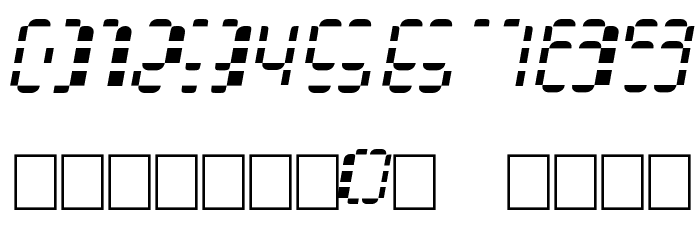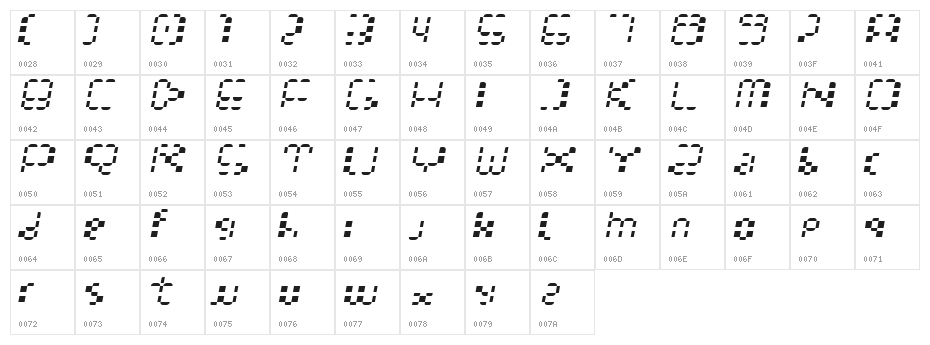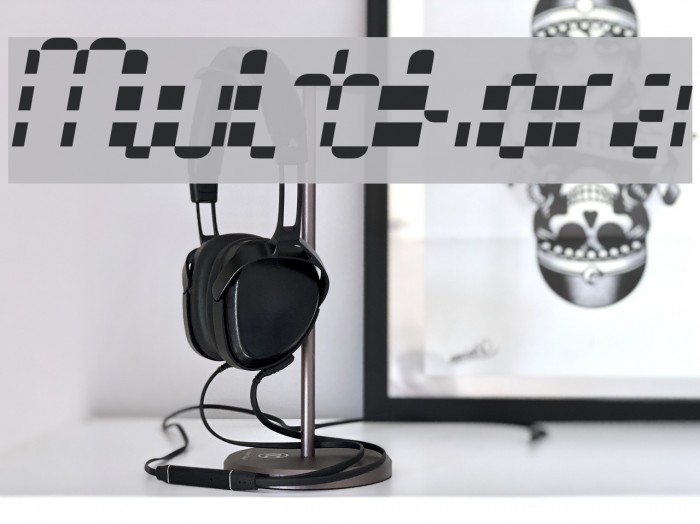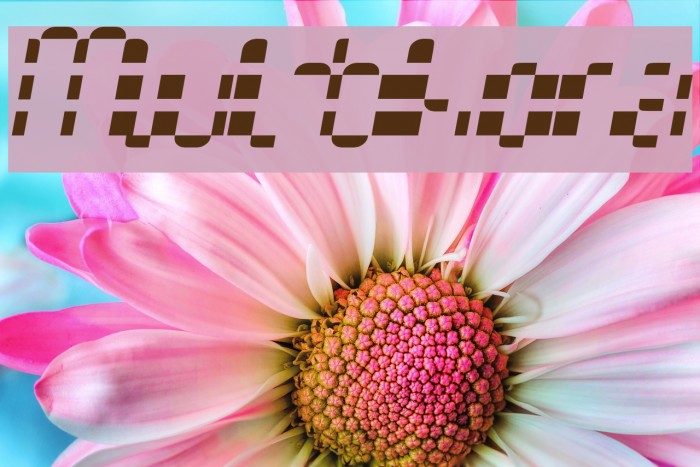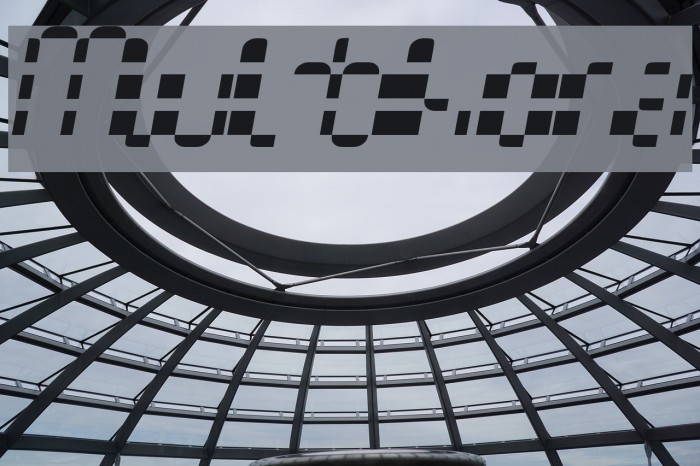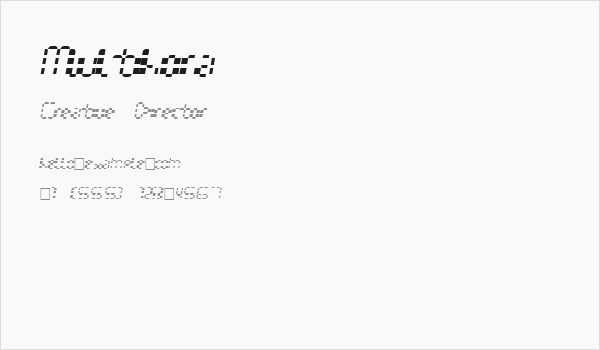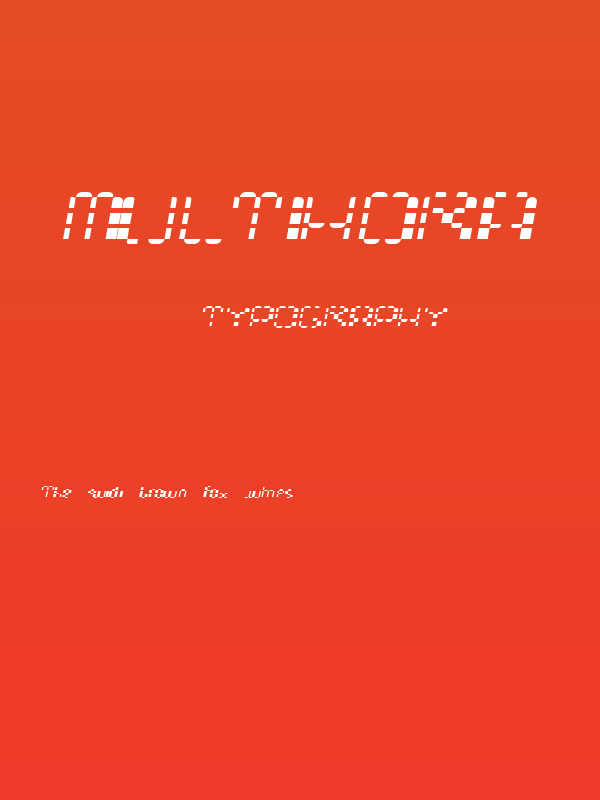
Multihora Font
Multihora Description
This font features a unique, pixelated design that gives it a digital and modern aesthetic. Each character is composed of small, square blocks that create a cohesive, grid-like appearance. The uppercase and lowercase letters maintain a consistent style, with rounded edges that soften the overall look. Numbers and special characters are designed to match the alphabet, ensuring uniformity across all text. This font's distinct style makes it stand out, offering a futuristic and tech-inspired vibe that is both eye-catching and versatile.
| Use Case | Logos, Headlines, Digital Art |
| Proposed Projects | Ideal for digital art projects, tech-themed designs, video game graphics, and modern branding materials. |